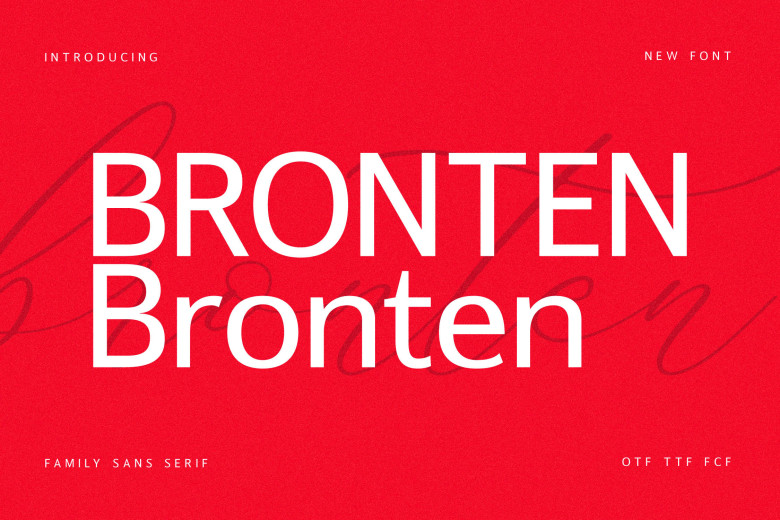
Bronten Font
Bronten typeface was developed by Storytype as a modern, classic sans-serif font with its own distinct appearance and style. Ideal for logo designs, book or movie titles, clothing magazines letters quotes etc – Bronten is versatile enough to use in a range of applications!
Bronten Sans Serif Typeface